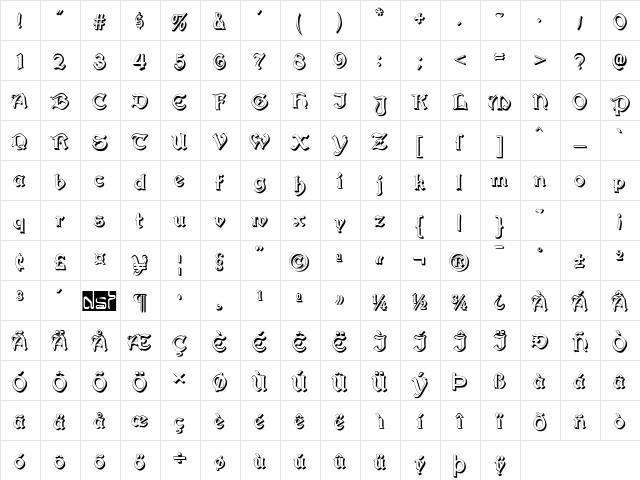
Augusta Shadow Regular
Design Context for Augusta Shadow Typeface
Augusta Shadow is built around its visual character rather than neutral utility — its distinctive forms are designed to make an impression at display sizes.
Font Pairing: Pair with a clean neutral sans-serif for body copy to let Augusta Shadow's character lead without overwhelming the composition.
Pro Tip: Treat Augusta Shadow as the centrepiece of your typographic hierarchy. One strong heading set in a decorative face can carry an entire layout.